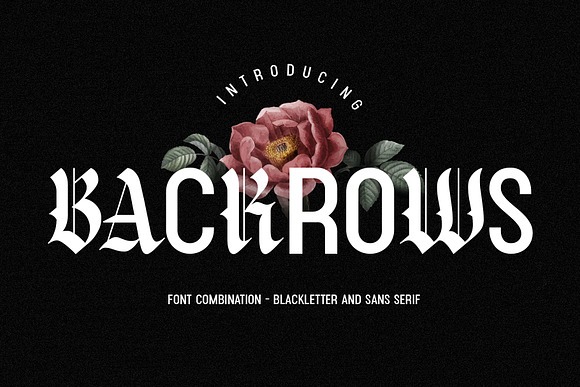
Backrows – Font Combination Font
About Backrows – Font Combination
Introducing Backrows, a captivating blend of blackletter and sans serif fonts. This unique combination offers an elegant and modern aesthetic, allowing for versatile design possibilities. With additional alternate characters, you can mix and match to create stunning typography.